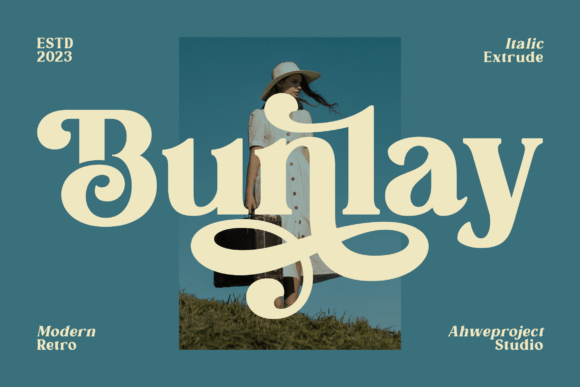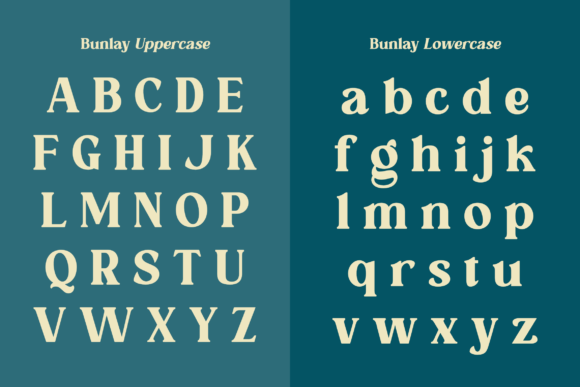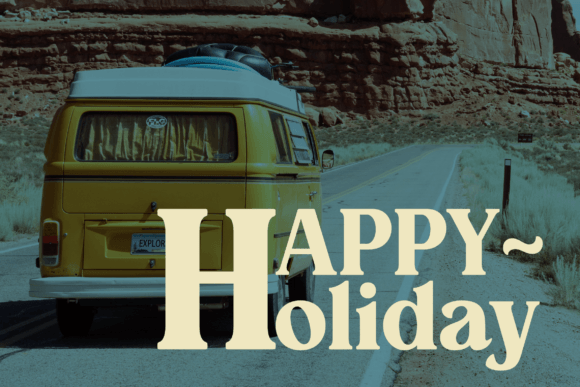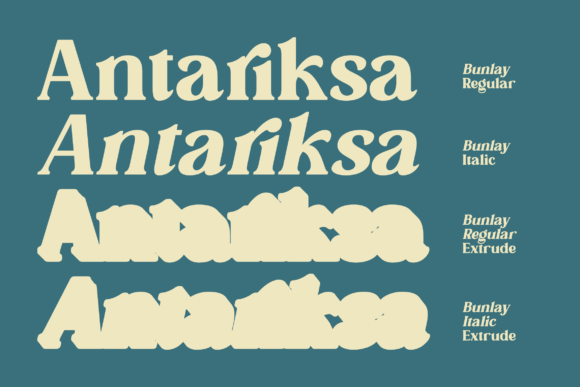
Bunlay Font: A Playful Serif for Retro Logo Design & Branding
About the Bunlay Font
The Bunlay Font offers a perfect balance of form and function for your design needs. Bunlay feels playfully nostalgic and delivers an incredible vintage aesthetic. Use this serif font to add that special retro touch to any design idea you can think of!
Masterfully designed to become a true favorite, this font has the potential to bring each of your creative ideas to the highest level!
Bunlay’s playful vintage aesthetic makes it ideal for headlines, short text blocks on posters, and branding projects requiring a retro feel. It works particularly well for packaging design evoking nostalgia, or logos for vintage-inspired businesses. However, its decorative nature makes it less suitable for body text or UI elements where readability is paramount. Long paragraphs set in Bunlay would be difficult to read.
Consider pairing Bunlay with a clean sans-serif like Open Sans for a balanced contrast, or a geometric sans-serif for a more modern twist. A simple, elegant serif like Lora could also complement its vintage charm, providing a refined counterpoint to Bunlay’s playful swashes.
Bunlay’s overall personality is best described as playful yet sophisticated; nostalgic but not outdated. Its retro charm offers a unique and engaging visual style, best suited for brands aiming for a vintage-inspired, yet approachable aesthetic.
Bunlay Font Usage Examples